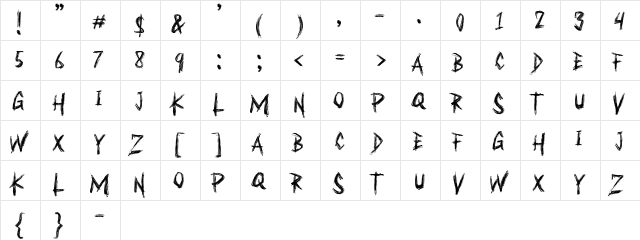
Bruttall Regular
Design Context for Bruttall Typeface
Bruttall is a composed and adaptable typeface that performs quietly and consistently across a wide range of design contexts.